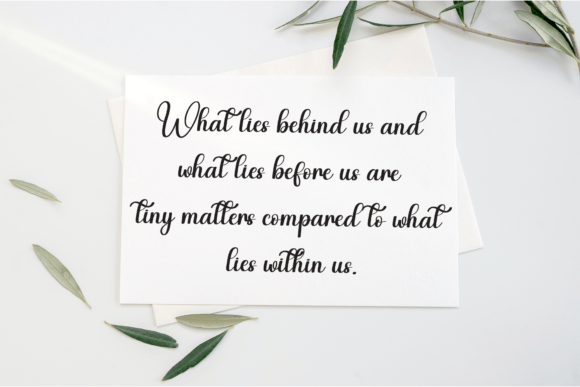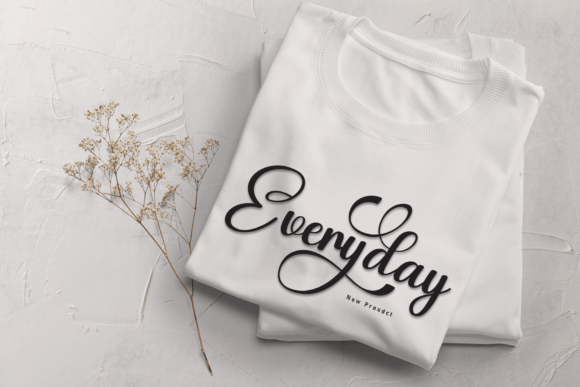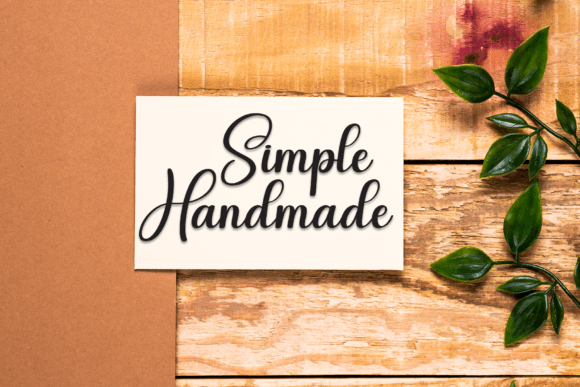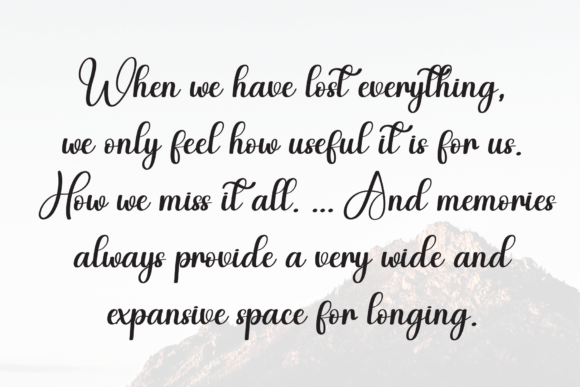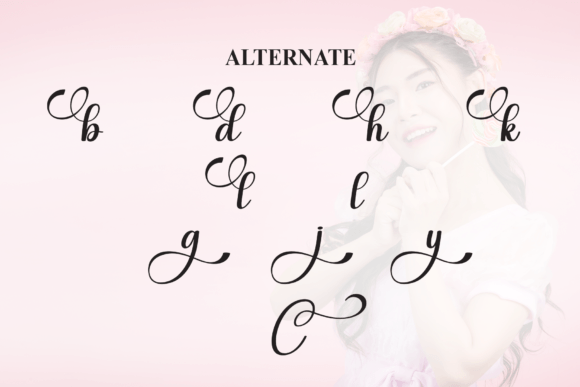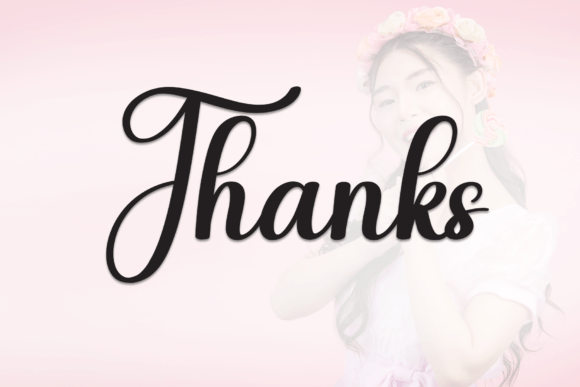
Introducing Cutegirl Font: The Sweet and Friendly Handwritten Font for Your Design Needs
Are you a designer or crafter looking for a font that can add a touch of sweetness and friendliness to your designs? Look no further than Cutegirl Font! This beautiful handwritten font is perfect for creating wedding invitations, cards, and other designs that require a fun and playful touch.
What Makes Cutegirl Font So Special?
Cutegirl Font is a unique and charming handwritten font that is sure to capture the hearts of your audience. Its sweet and friendly appearance makes it ideal for a wide range of design projects, from wedding invitations and birthday cards to social media graphics and blog posts.
The Perfect Font for Wedding Invitations and Cards
Wedding invitations and cards are a great way to showcase the beauty of Cutegirl Font. Its elegant and cursive script makes it perfect for formal and informal wedding invitations, save-the-date cards, and thank-you notes.
But Cutegirl Font is not just limited to wedding designs. It’s also a great choice for birthday cards, baby shower invitations, and other celebrations that require a personal and thoughtful touch.
Why Designers and Crafters Love Cutegirl Font
Designers and crafters love Cutegirl Font for its unique and charming appearance. Here are just a few reasons why:
- Easy to read: Cutegirl Font is clear and easy to read, making it perfect for designs that require a lot of text.
- Highly versatile: Cutegirl Font can be used for a wide range of design projects, from digital graphics to print materials.
- Unique and eye-catching: Cutegirl Font has a distinctive and charming appearance that is sure to grab the attention of your audience.
How to Use Cutegirl Font in Your Designs
Using Cutegirl Font in your designs is easy! Here are a few tips to get you started:
- Pair it with other fonts: Cutegirl Font looks great when paired with other fonts, such as bold sans-serif fonts or elegant script fonts.
- Use it for headings and titles: Cutegirl Font is perfect for headings and titles, where its elegant and cursive script can really shine.
- Add some flair: Cutegirl Font can be used with a variety of design elements, such as flowers, hearts, and other graphics, to add a touch of whimsy and fun to your designs.
In conclusion, Cutegirl Font is a sweet and friendly handwritten font that is perfect for designers and crafters looking to add a touch of charm and whimsy to their designs. Its versatility, elegance, and playfulness make it ideal for a wide range of design projects, from wedding invitations and cards to social media graphics and blog posts.